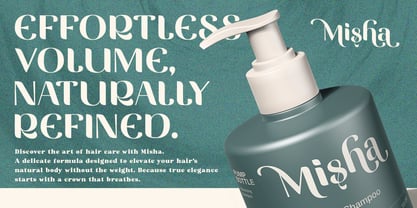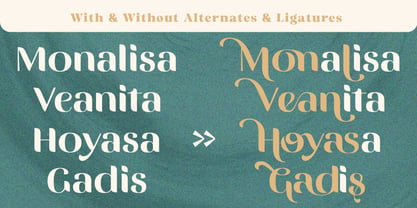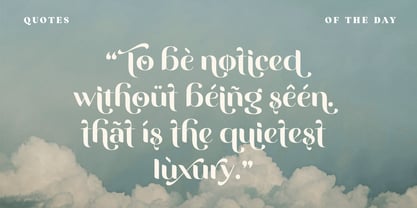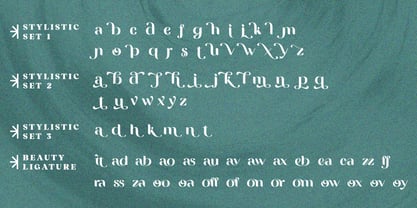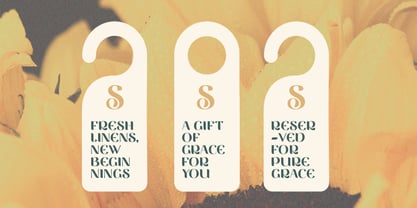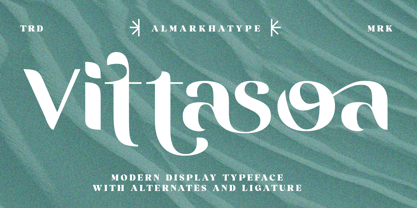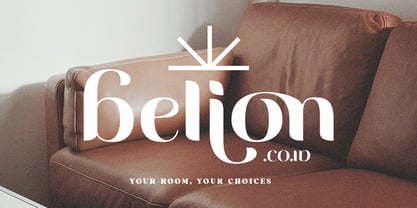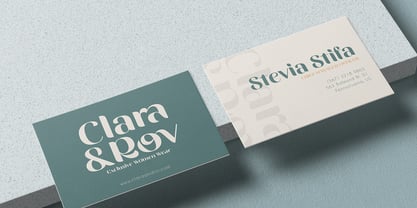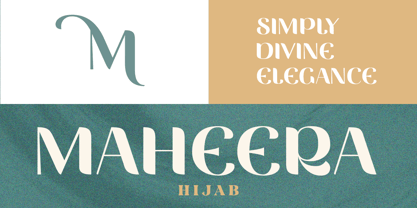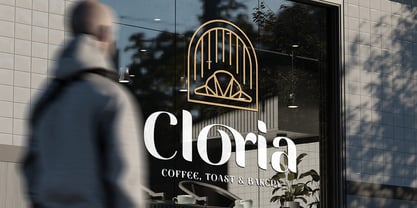
Vittasoa
by Almarkha Type
The Vittasoa Font Family was designed by Abdul Malik Wisnu and published by Almarkha Type. Vittasoa contains 1 styles. More about this family
Introducing Vittasoa, a modern display typeface crafted with elegant curves and unique letterforms. This font blends contemporary style with artistic details, creating a sophisticated and eye-catching look for your designs. Designed with alternates and ligatures, Vittasoa provides the flexibility to explore more creative typography compositions. Each character is carefully shaped to deliver a stylish and expressive visual identity. Perfect for a wide range of design needs such as logos, branding, editorial layouts, invitations, social media graphics, fashion projects, product packaging, and more.